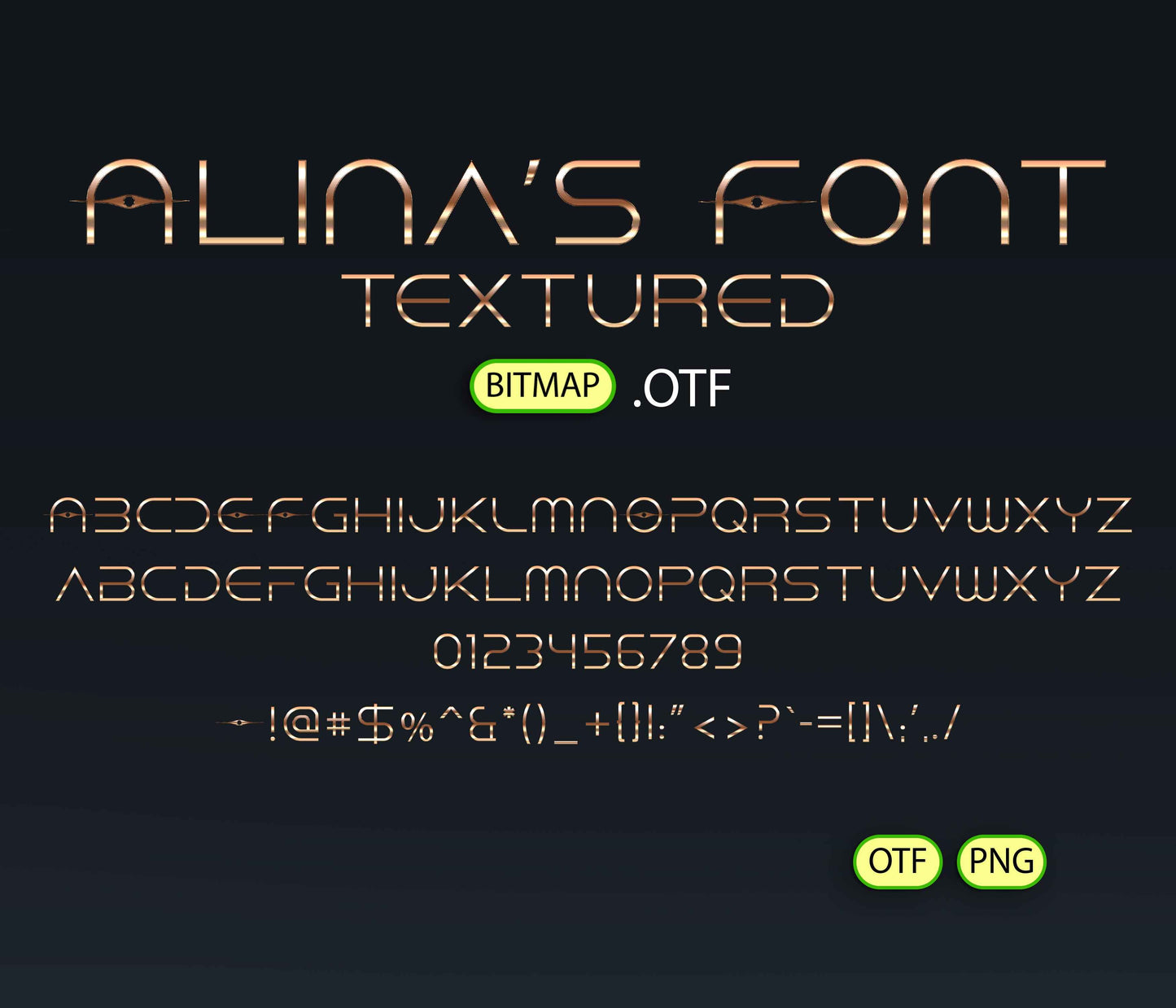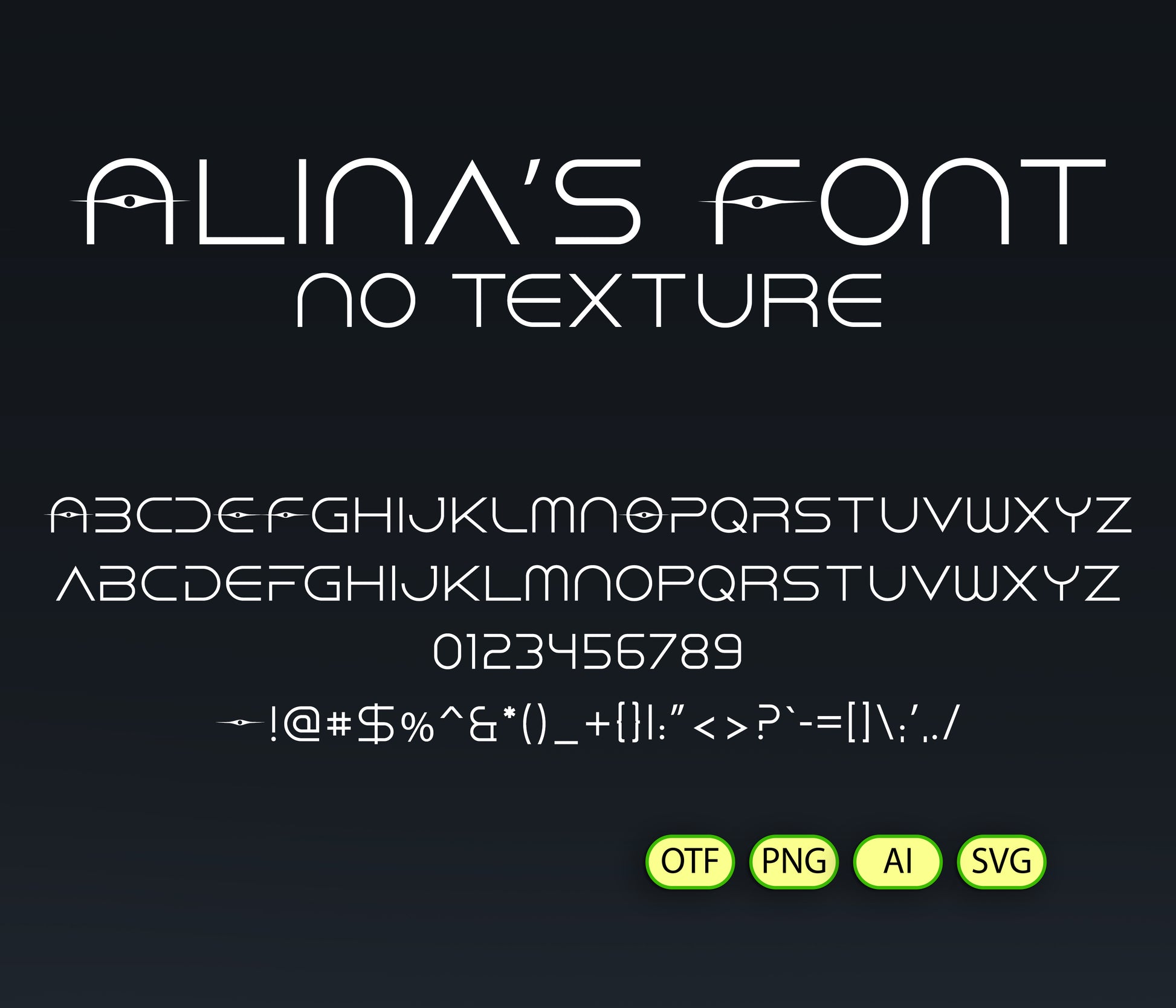
Spice Odyssey Font Textured
Embark on Epic Adventures with the Spice Odyssey Font
Embark on an epic journey across the desolate yet awe-inspiring landscapes of Spice Odyssey with our Spice Odyssey font, a typographic masterpiece inspired by the sprawling saga of power, survival, and destiny. Crafted with meticulous detail and profound depth, our Spice Odyssey font is a tribute to the enduring legacy of this monumental science fiction epic.
What Font is the Spice Odyssey Font?
Envision a typeface that mirrors the stark contrasts and intricate lore of the Spice Odyssey series. This font captures the rugged beauty of Spice Odyssey, the elegance of the Imperial Court, and the mystique of the spice culture. With handcrafted precision, it embodies the visual aesthetics seen in the Spice Odyssey universe, from the sweeping dunes to the advanced technology of the far future. Its extensive character set ensures a comprehensive tool for storytelling, capable of conveying the rich, complex narratives that define the saga.
The Spice Odyssey font is more than just a set of characters; it's a gateway to the richly imagined world, inviting creators to explore the themes of power, ecology, and destiny through their designs. Whether used for personal projects, fan art, commercial merchandise, or educational purposes, this font brings the essence of Spice Odyssey's universe to life, allowing fans and newcomers alike to craft their own narratives within the sprawling saga. With its compatibility across platforms and versatility in application, the Spice Odyssey font ensures that the legacy of Spice Odyssey continues to inspire across the sands of time.